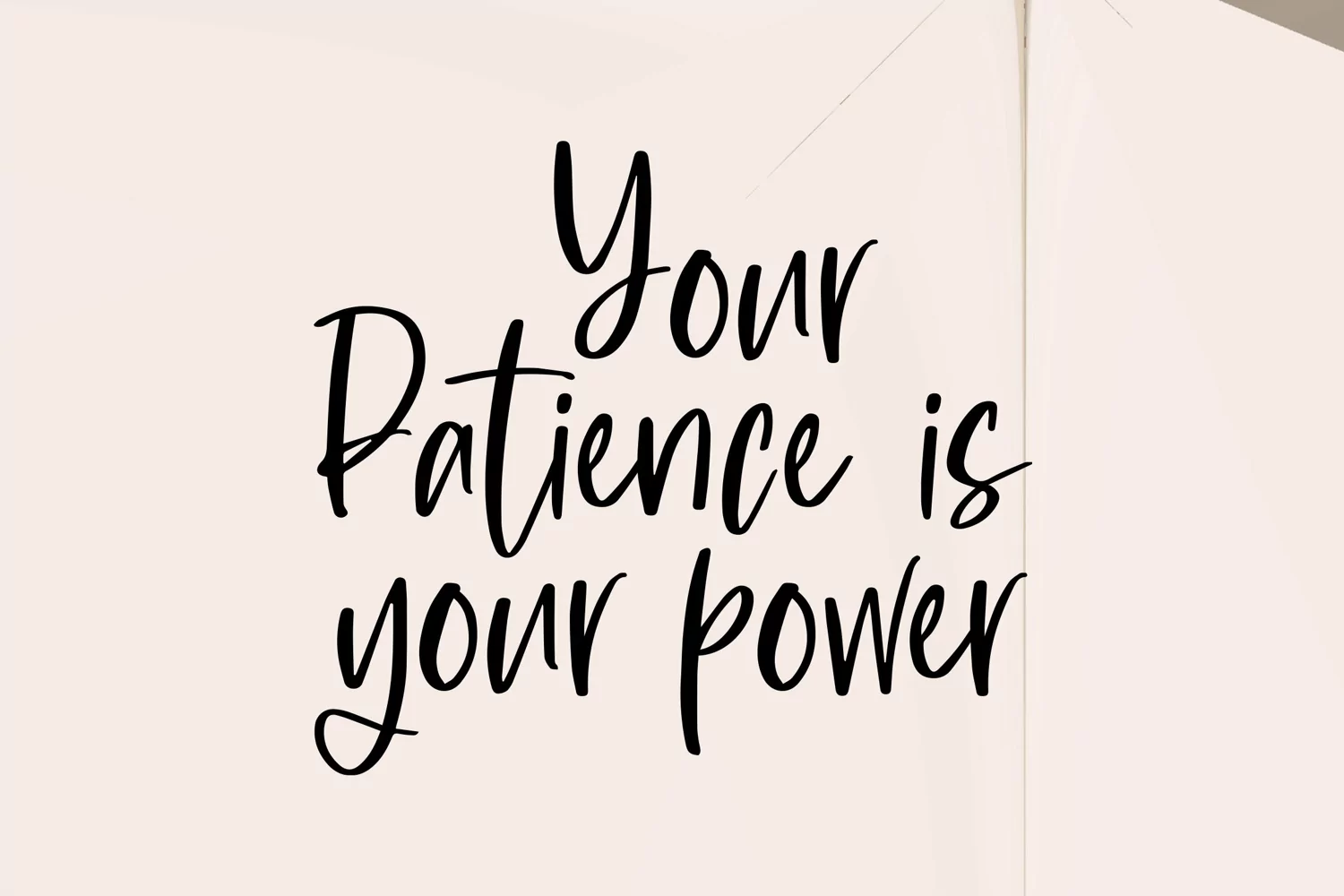
Letter Mistress - Beauty Handdrawn Font that contain lowercase, uppercase, symbol, and also support multi language. There’s a lot ligatures in this font. This Font also comes with ligatures, alternates and many more. this font suitable for fashion, branding, catalog and other design what you want.